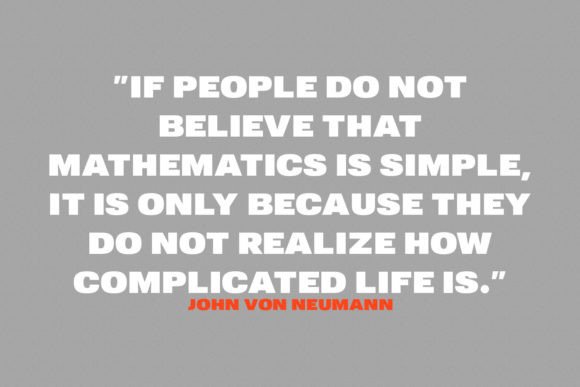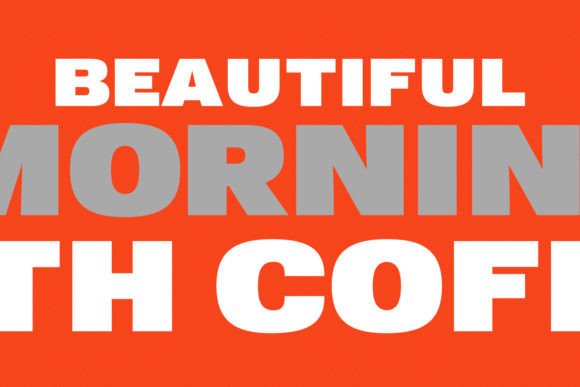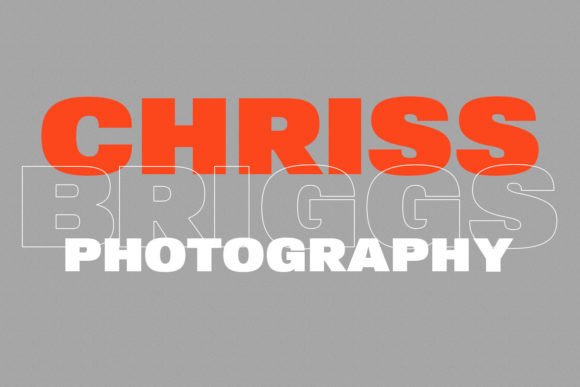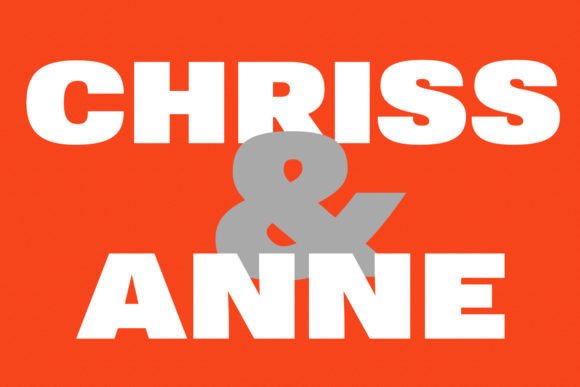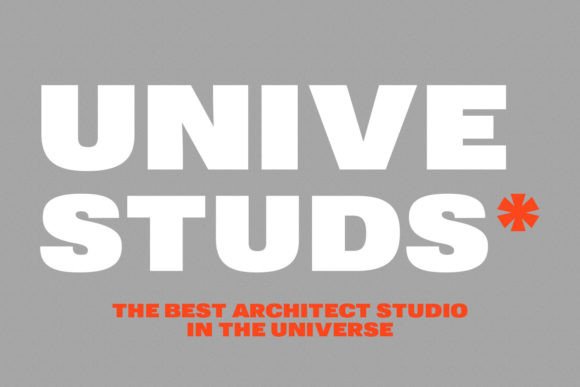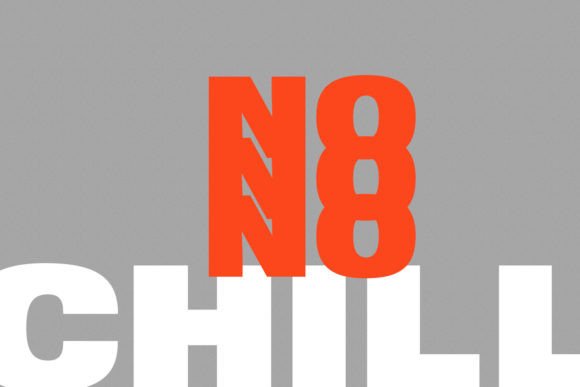
Cogney Font: The Modern Sans Serif Font for Impactful Designs
In the world of typography, fonts play a crucial role in conveying messages and making a lasting impression. For designers and crafters, finding the right font can be a daunting task, but today, we’re excited to introduce you to Cogney, an all-caps modern sans serif font that’s sure to make a statement. With its bold and modern look, Cogney is guaranteed to add a touch of sophistication and elegance to your projects.
What is Cogney Font?
Cogney is a contemporary sans serif font that’s designed to make an impact. Its clean lines, precise curves, and geometric shapes create a visually stunning effect that’s perfect for headlines, titles, and any other design element that requires a strong presence. As an all-caps font, Cogney exudes confidence and authority, making it an excellent choice for designers who want to create a lasting impression.
Key Features of Cogney Font
- Modern and Bold Look: Cogney’s sleek design and bold appearance make it perfect for creating eye-catching headlines and titles.
- All-Caps Design: Cogney’s all-caps design gives it a sense of confidence and authority, making it ideal for designers who want to make a statement.
- Clean Lines and Precise Curves: Cogney’s geometric shapes and precise curves create a clean and sophisticated look that’s perfect for modern designs.
- Versatile and Adaptable: Cogney can be used in a variety of design projects, from branding and advertising to packaging and digital media.
Why Choose Cogney Font?
So, why should you choose Cogney font for your next design project? Here are just a few reasons:
- Make a Lasting Impression: Cogney’s bold and modern look is guaranteed to grab attention and make a lasting impression on your audience.
- Add Sophistication and Elegance: Cogney’s clean lines and precise curves add a touch of sophistication and elegance to any design project.
- Stand Out from the Crowd: With Cogney, you can create designs that stand out from the crowd and leave a lasting impression on your audience.
How to Use Cogney Font in Your Designs
Using Cogney font in your designs is easy. Here are a few tips to get you started:
- Headlines and Titles: Use Cogney for headlines and titles to create a bold and eye-catching effect.
- Branding and Advertising: Use Cogney for branding and advertising projects to create a modern and sophisticated look.
- Digital Media: Use Cogney for digital media projects, such as social media graphics and website headers, to create a bold and attention-grabbing effect.
In conclusion, Cogney font is a modern sans serif font that’s guaranteed to make an impact. With its bold and modern look, clean lines, and precise curves, Cogney is the perfect choice for designers and crafters who want to create stunning designs that leave a lasting impression. Whether you’re working on a branding project, advertising campaign, or digital media project, Cogney is the perfect font to add a touch of sophistication and elegance. So why wait? Add Cogney to your design arsenal today and see the amazing results for yourself!